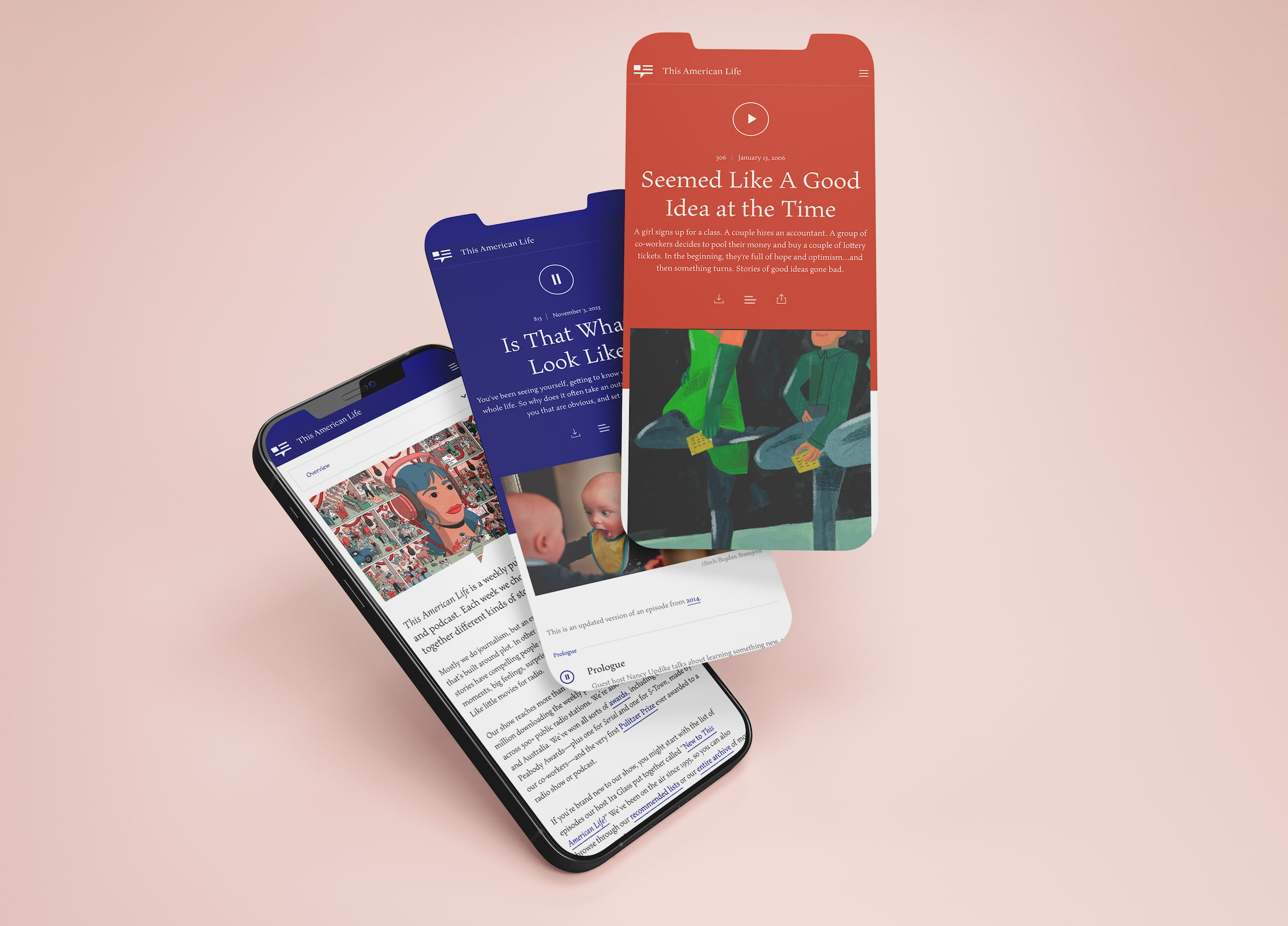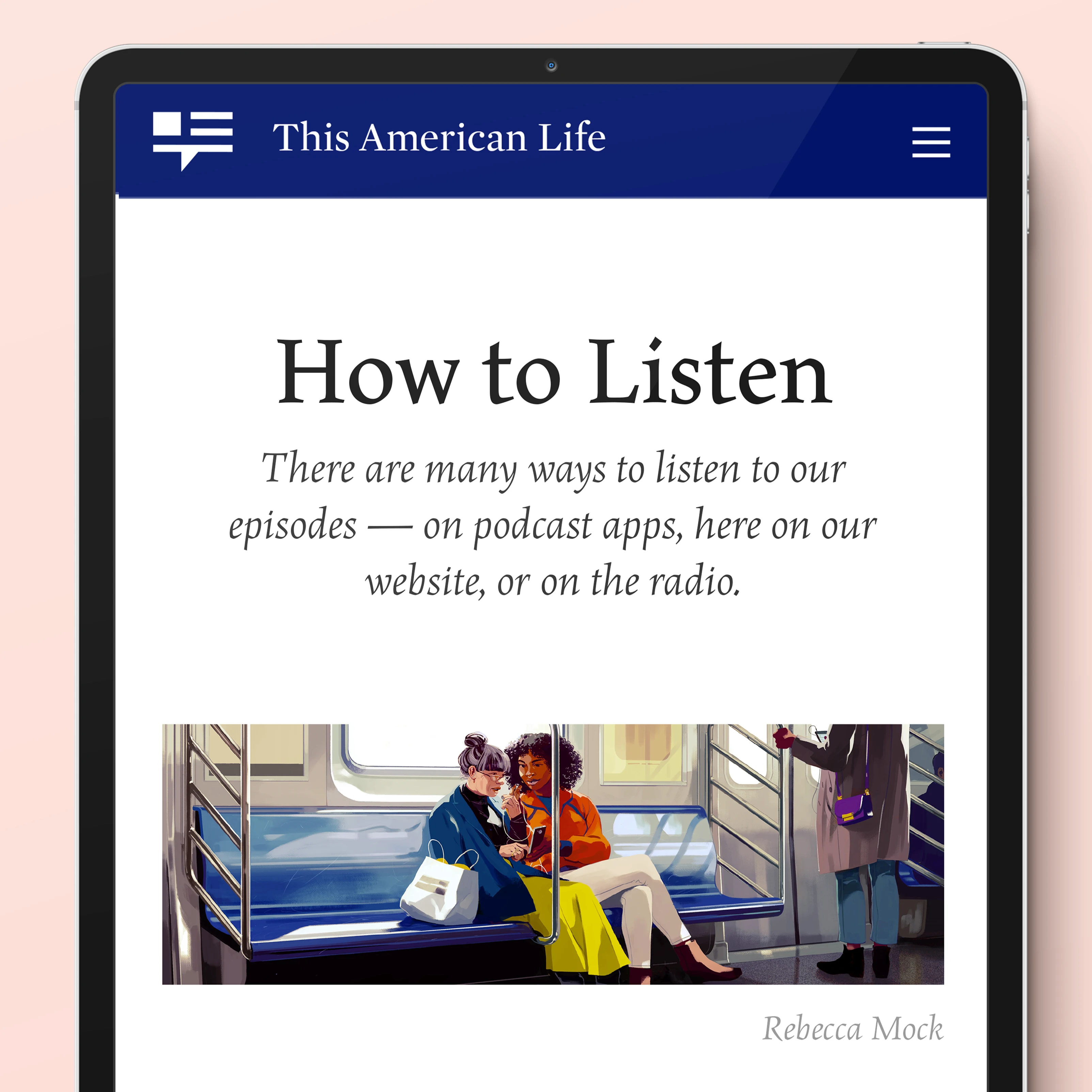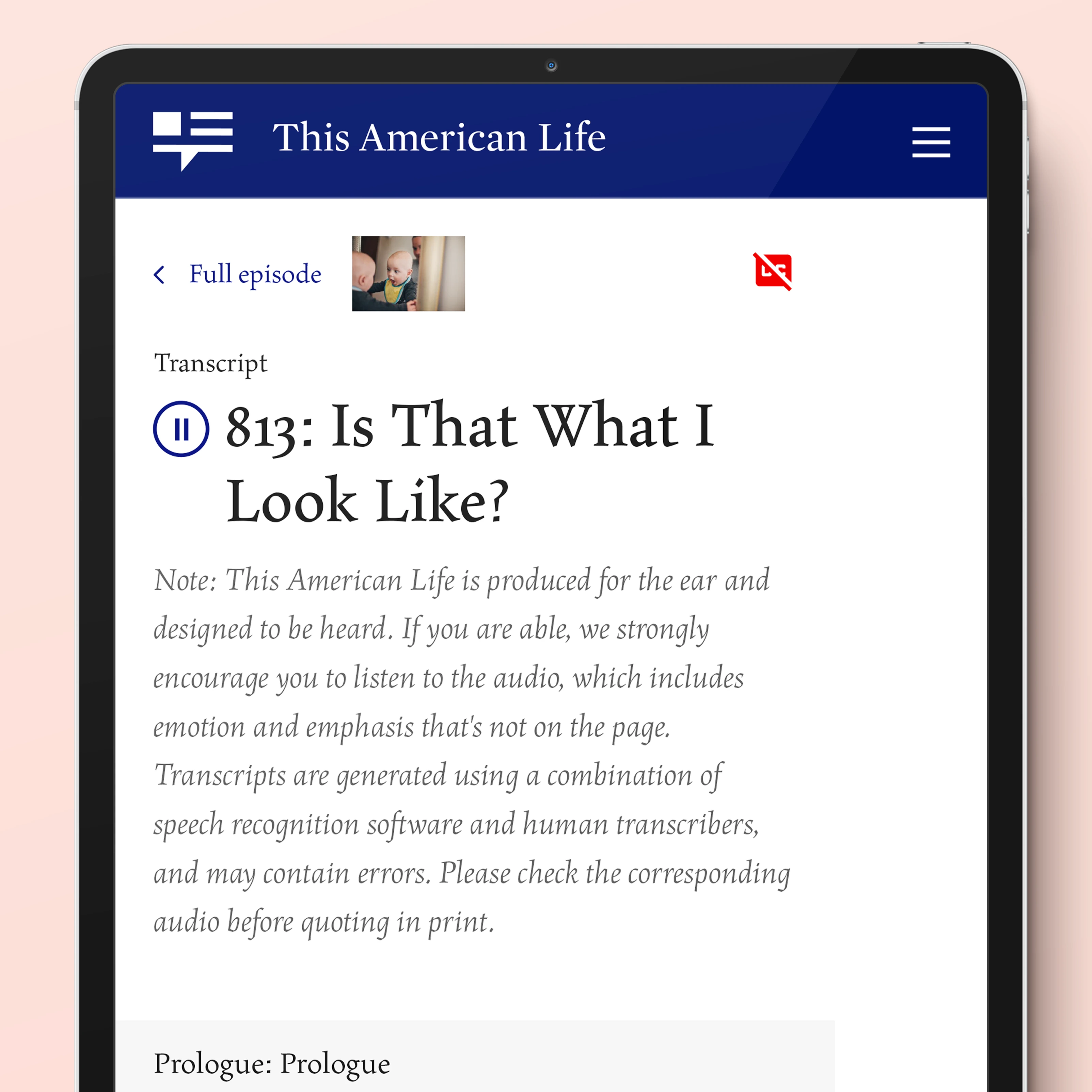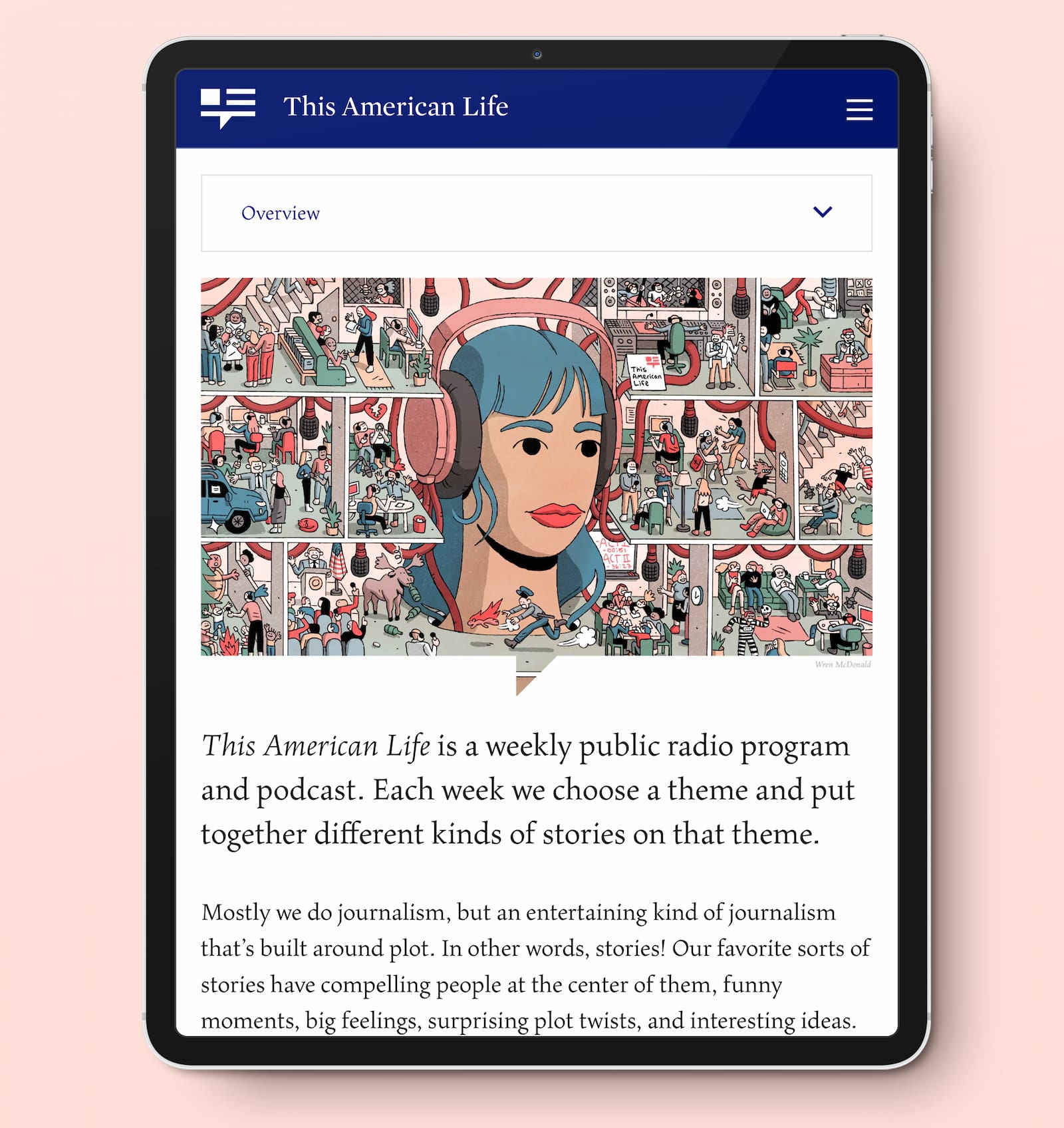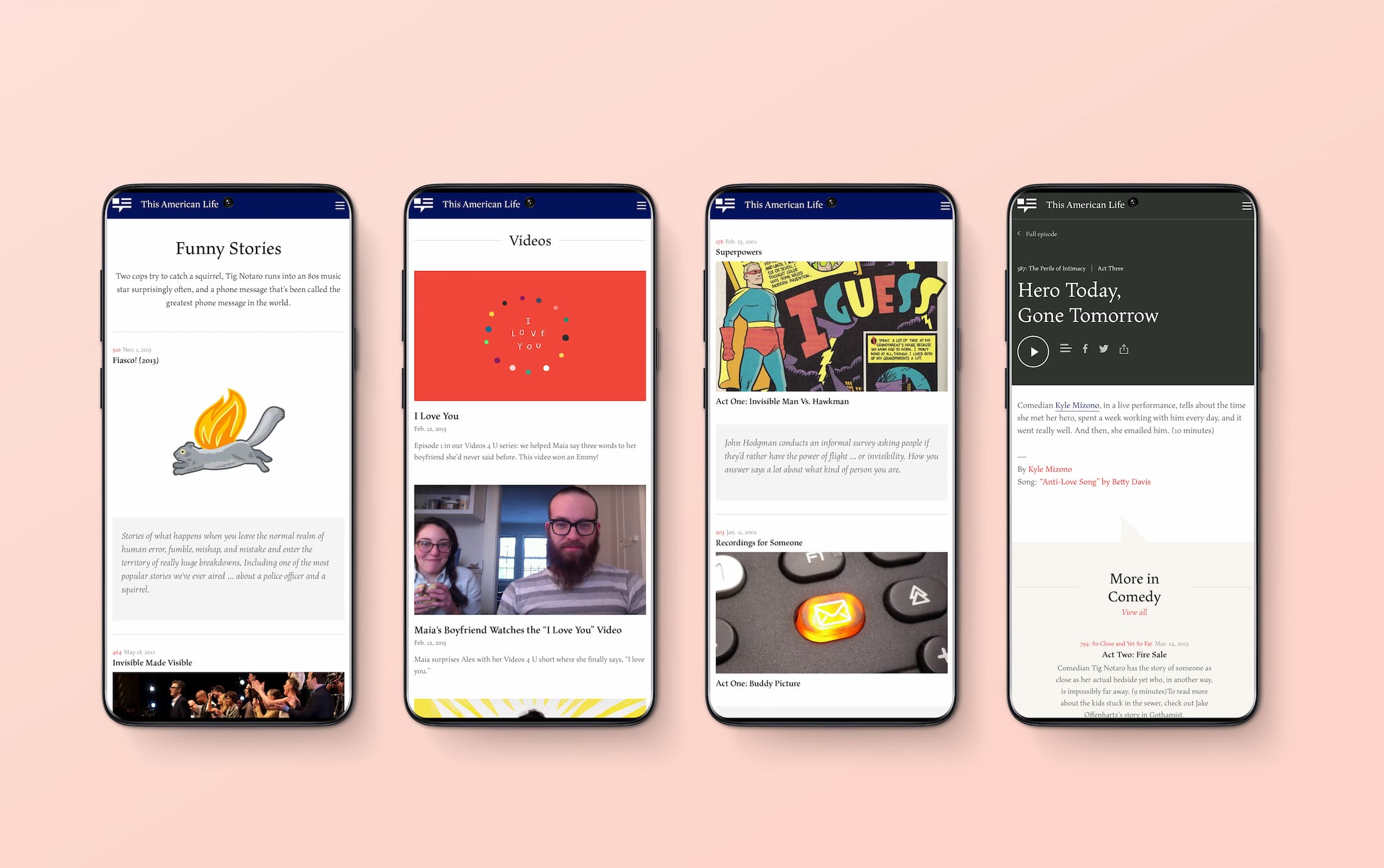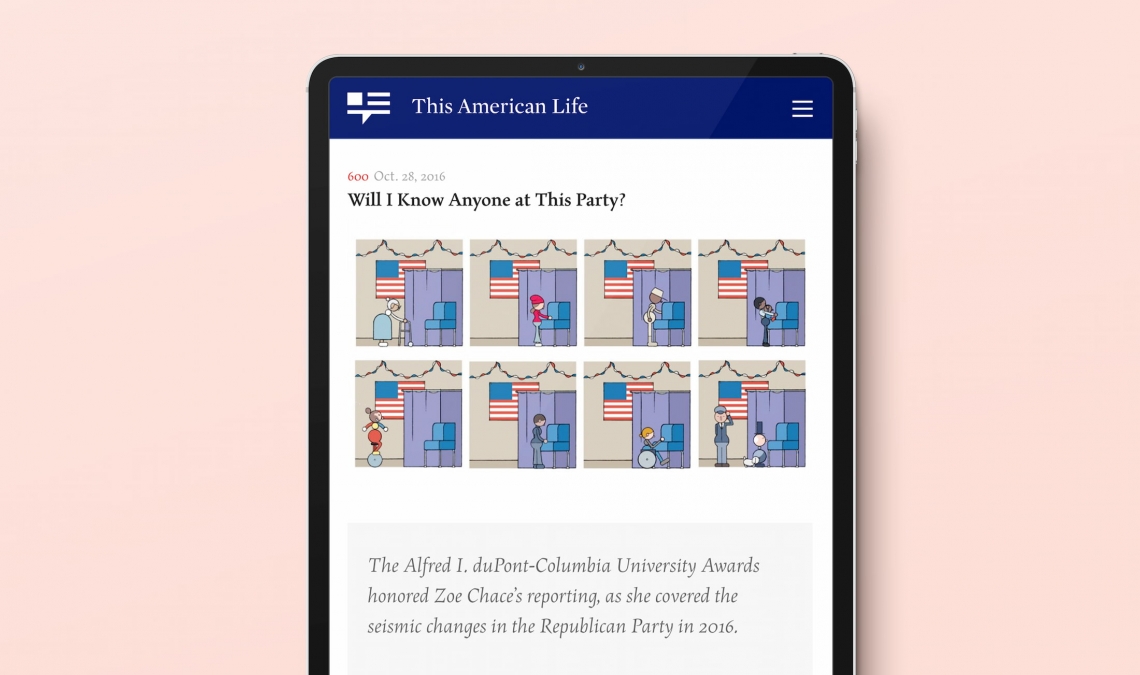
Maiola in This American Life Website
Maiola has been used on the website of This American Life, a weekly public radio program and podcast on the air since 1995.
Maiola, one of Veronika Burian’s earlier and multi-award winning serif designs, has been used for titles, paragraph text, and menus on the website of This American Life.
Since around 1995, This American Life has been known for its engaging depth, pith, and oddly interesting stories. More than mere journalism proper, the stories often link disparate subjects with a narrative highlighting the intensely personal amidst the American cultural and political context.
What drives longtime host and producer Ira Glass? “Our favorite sorts of stories have compelling people at the center of them, funny moments, big feelings, surprising plot twists, and interesting ideas. Like little movies for radio.” And at over four million listeners per week and numerous prestigious awards — including seven Peabodys and the first ever Pulitzer awarded to a radio show or podcast — it seems like their format is working.
Veronika created Maiola to be a contemporary typeface that is mindful of its heritage, designed to carry a human feel in text. Maiola fits This American Life’s intensely human theme by creating a welcoming tension on the digital page in oldstyle features and calligraphic reminiscences such as a humanist axis, modest contrast, and pen-formed terminals. Maiola is intended for high-quality printed text and thus handles its expressive tendencies with care to equalise the important issues of legibility and personality. Its glyphs also have purposeful and subtle irregularities to enhance its dynamic spirit.
Maiola shows that typefaces can bridge traditional storytelling and progress without losing one bit of expressiveness. Maiola covers the Latin A character set with a broad set of OpenType features, which is also included in Maiola Cyrillic, and Maiola Greek that covers polytonic Greek languages (Greek extension by Irene Vlachou).